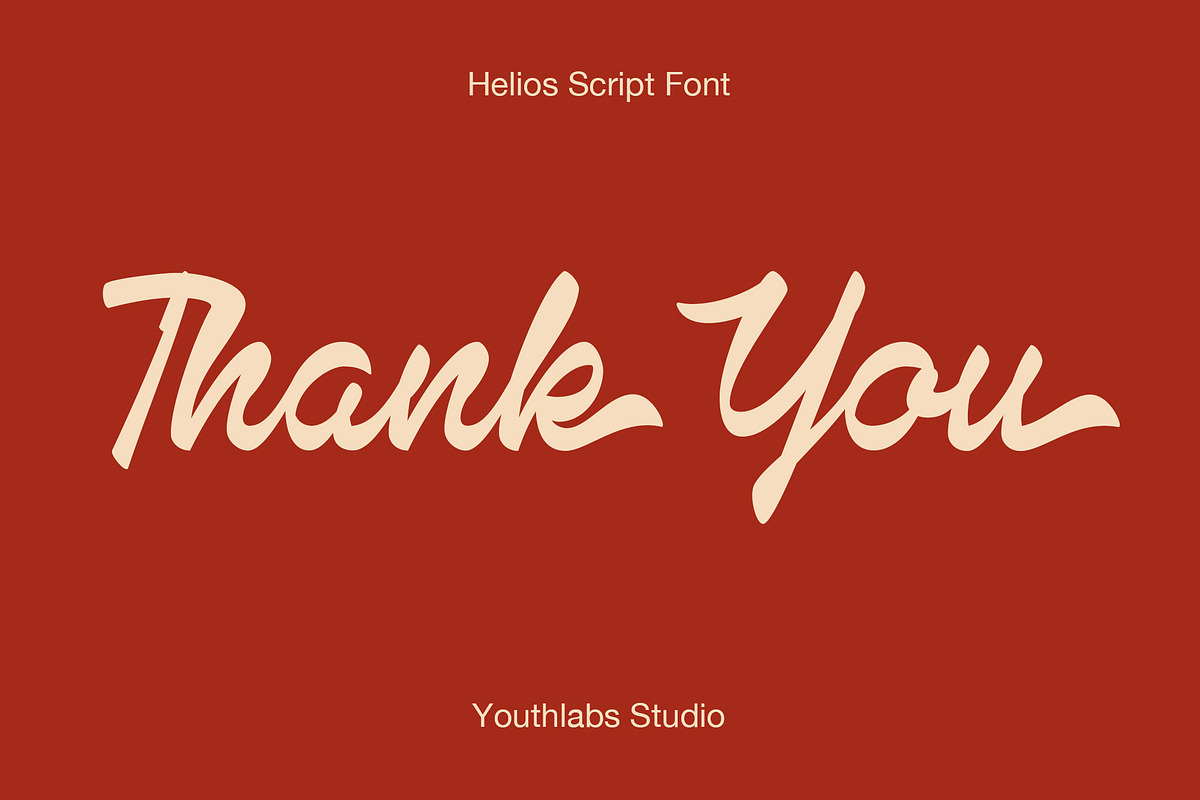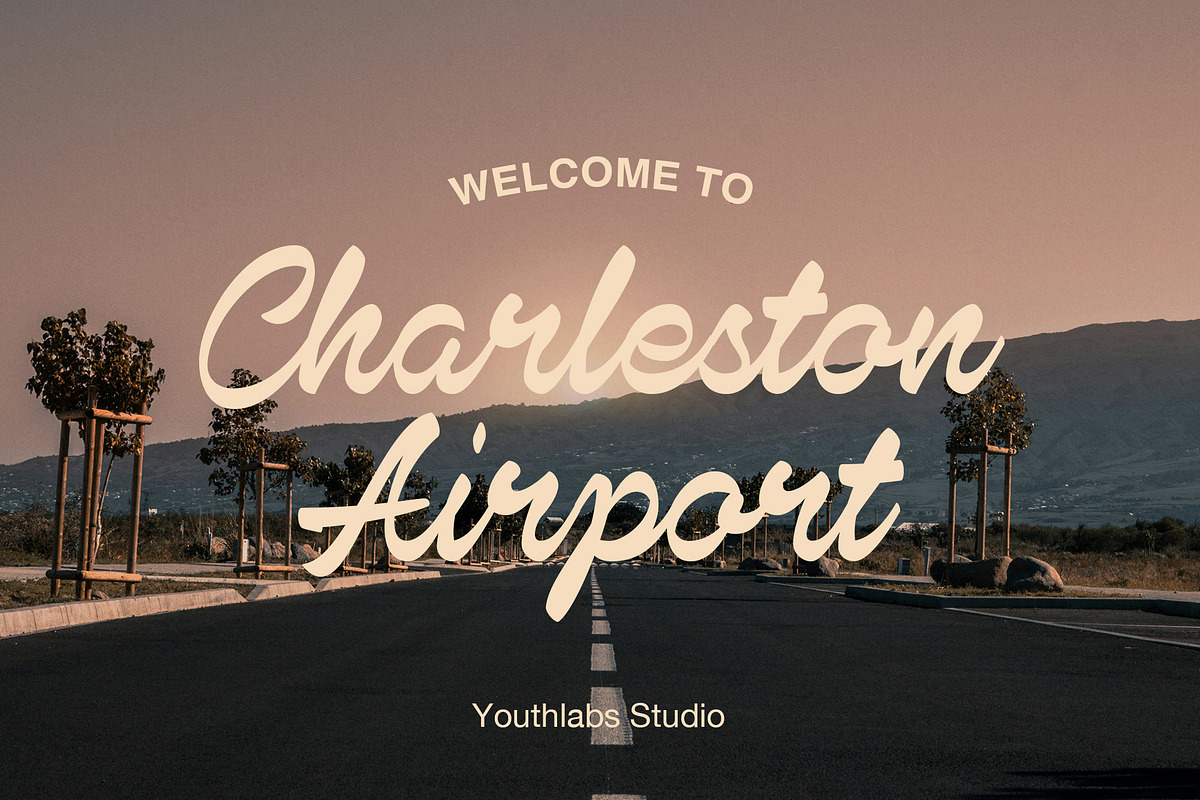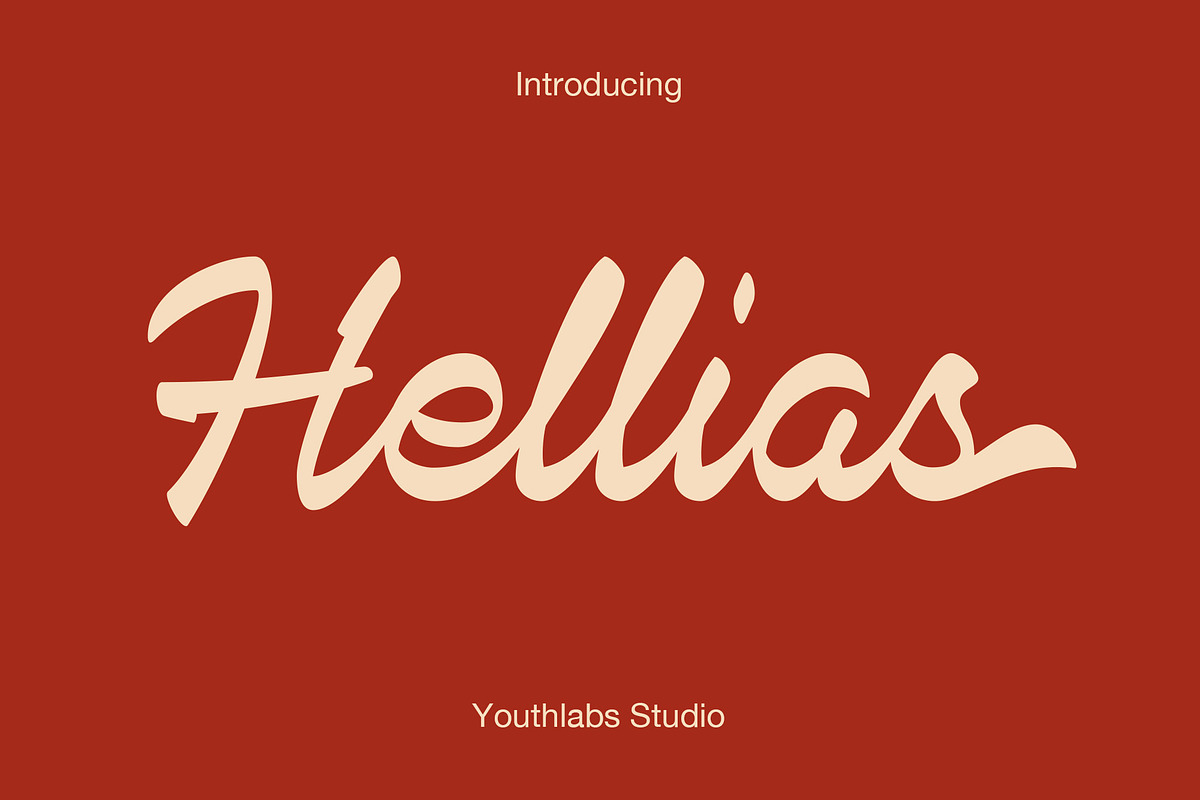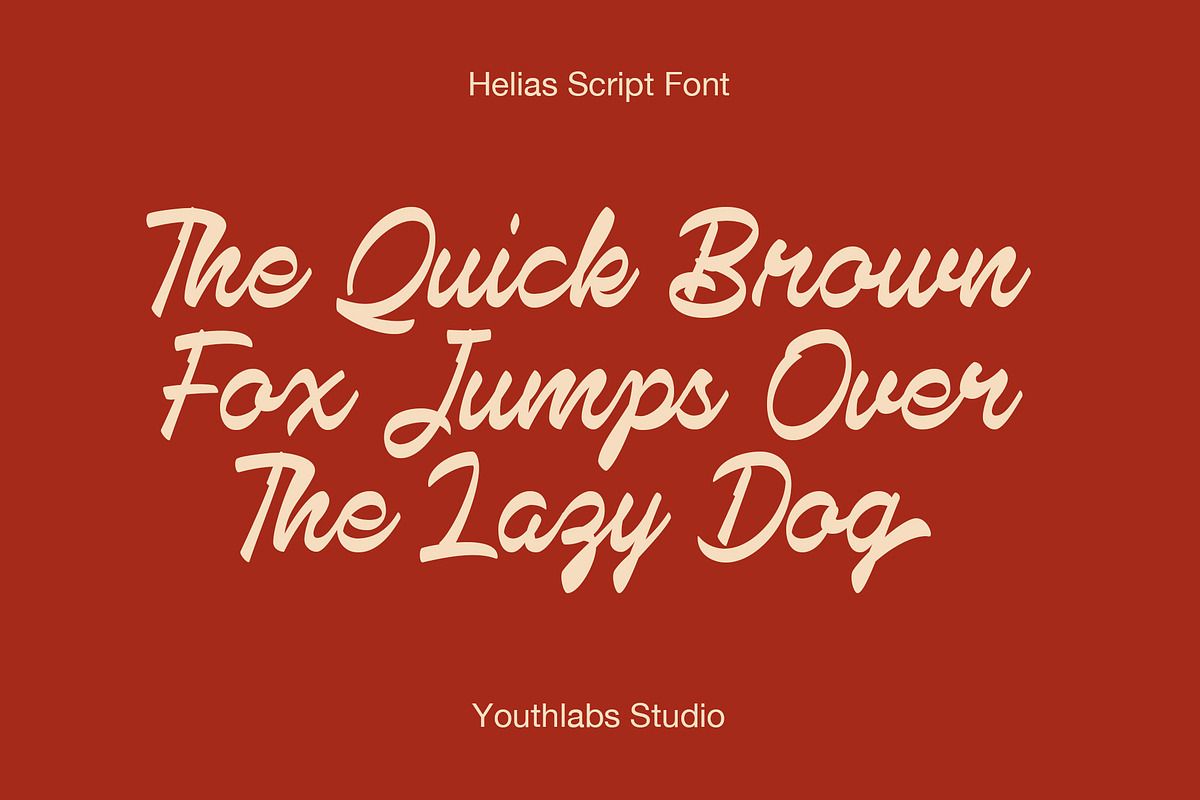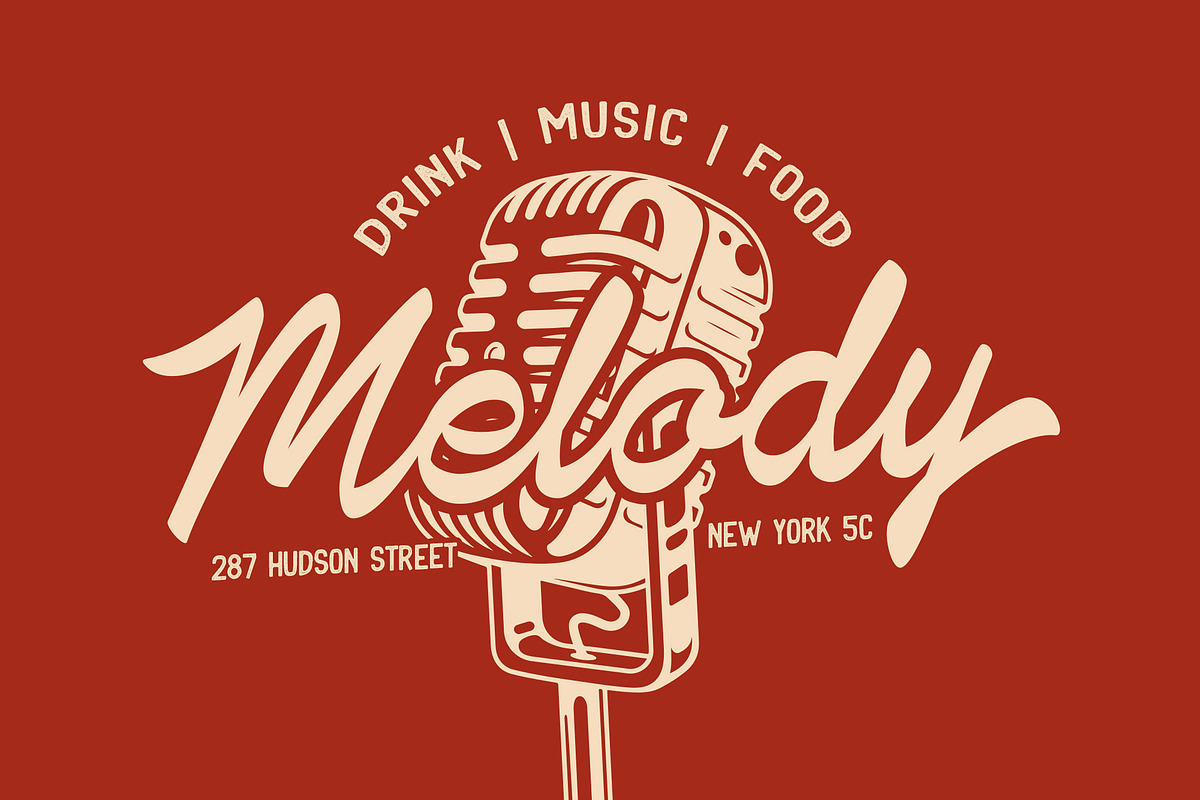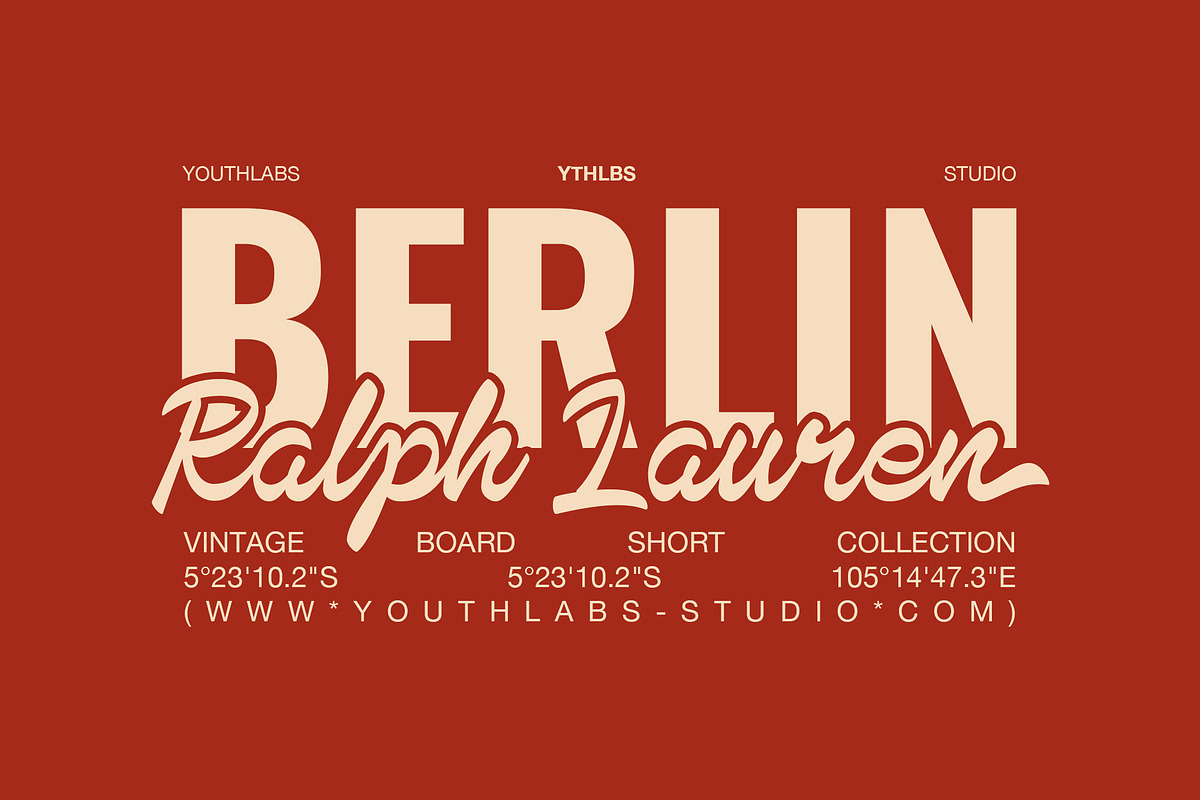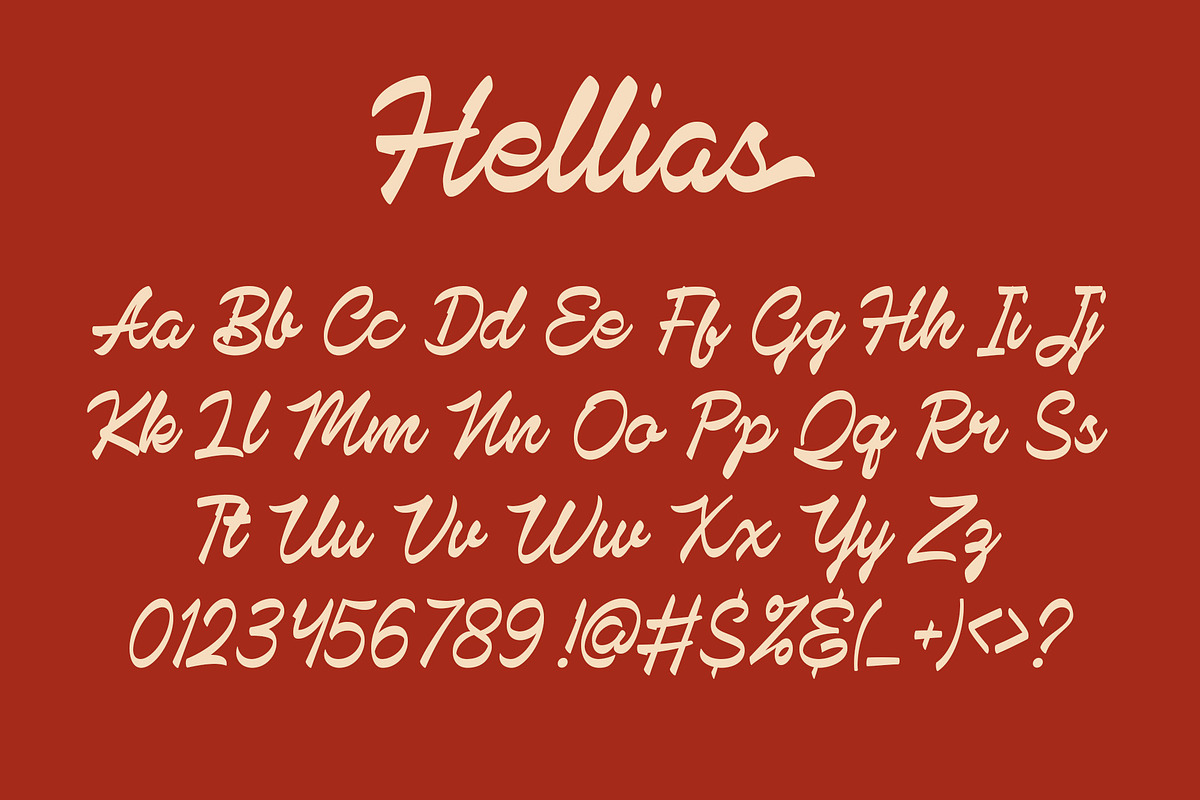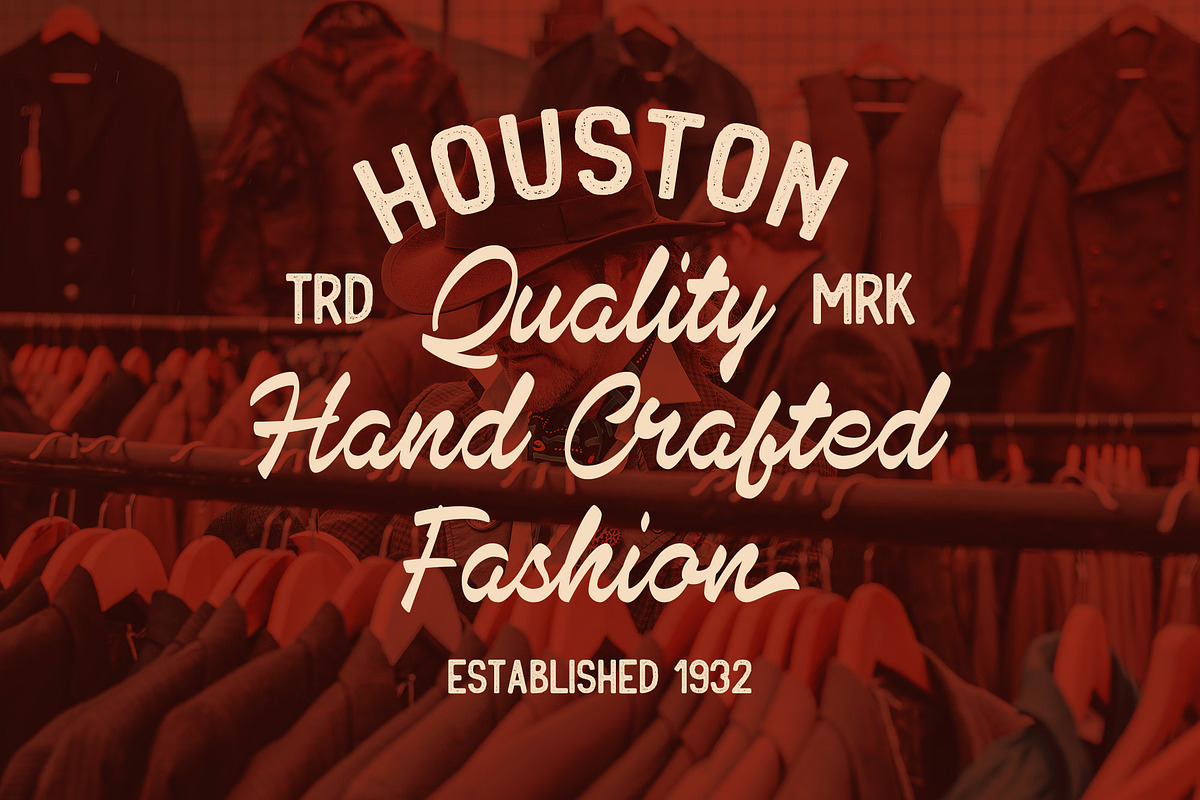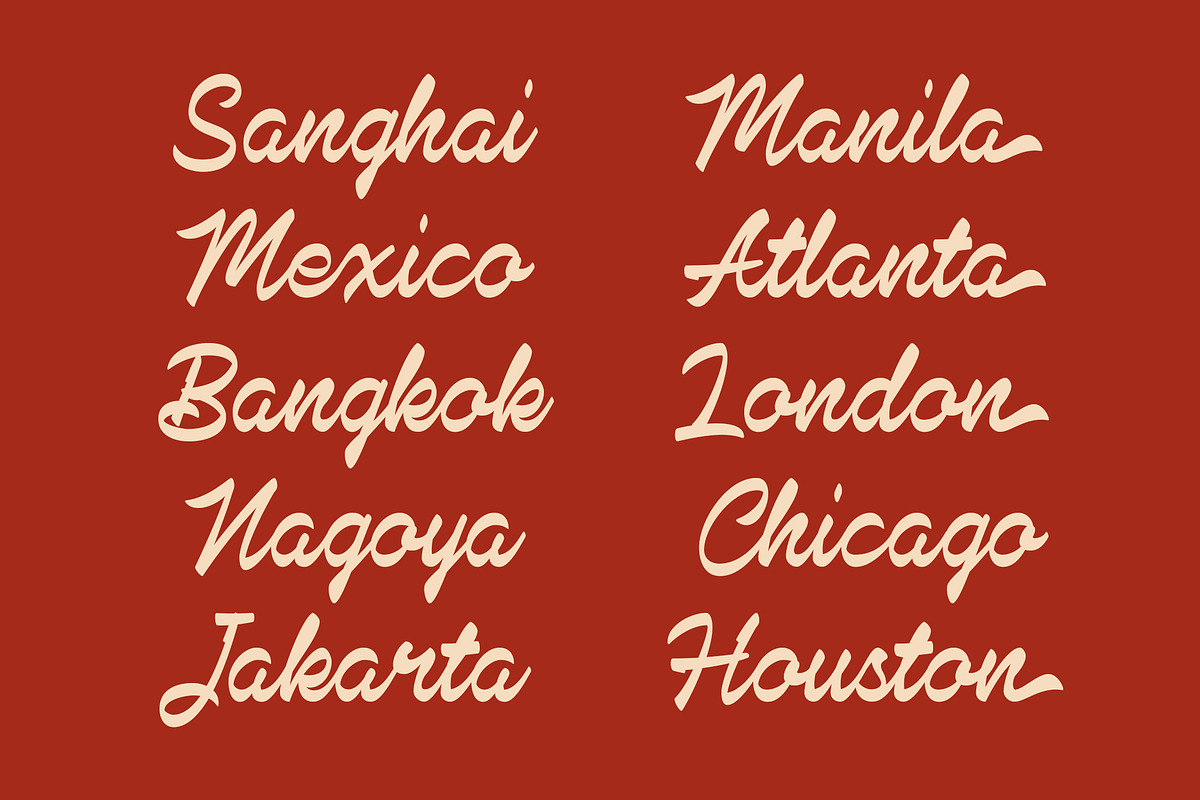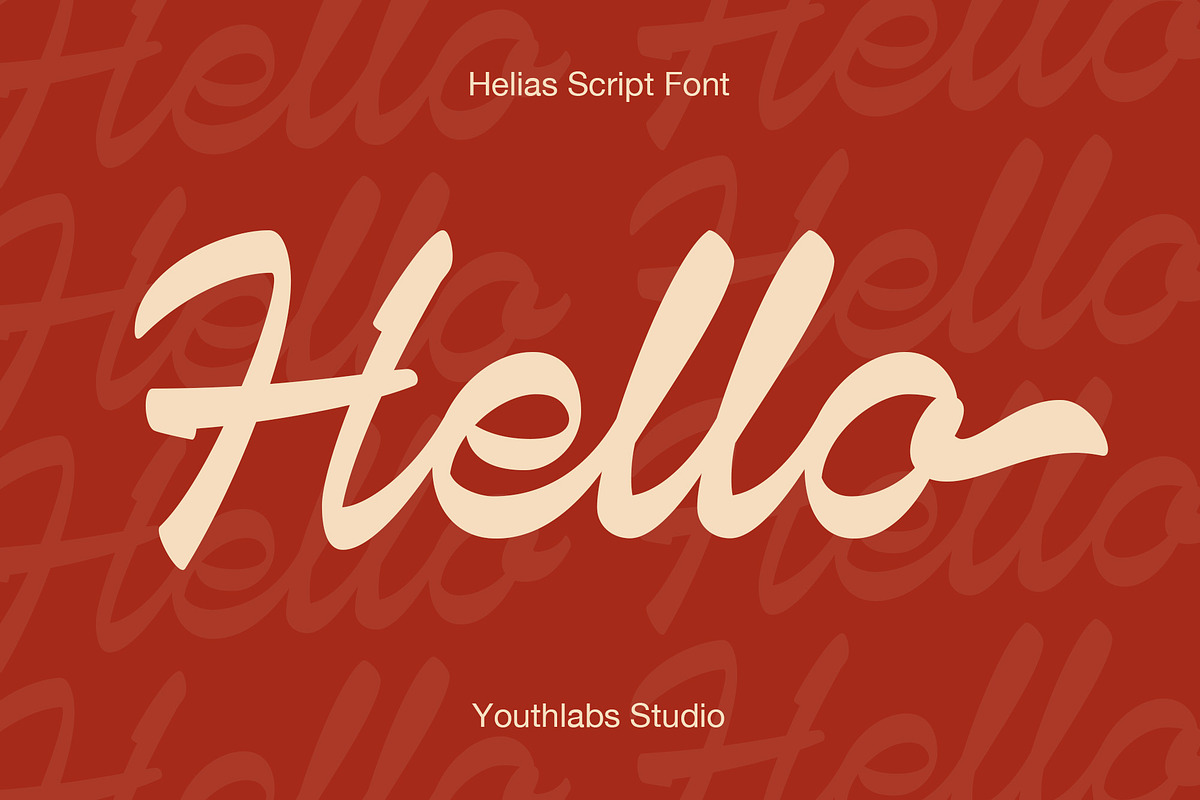
YT Hellias - Retro Script Font
Introducing YT Hellias,a retro script font that exudes timeless character and elegance. Inspired by classic eras, YT Hellias is crafted for creators who want to infuse their work with a vintage vibe. Its consistent yet artistic brushstrokes give an authentic feel, making every project come to life with a story to tell. YT Hellias is the perfect choice for posters, logos, packaging, and any other retro-inspired designs. Bold, strong, and captivating—let this font elevate your creativity to new heights. Get YT Hellias now and start creating designs that stand the test of time!
What's The Feature ? • Ligature • Stylistic Alternate • Multilingual Support • Opentype Support